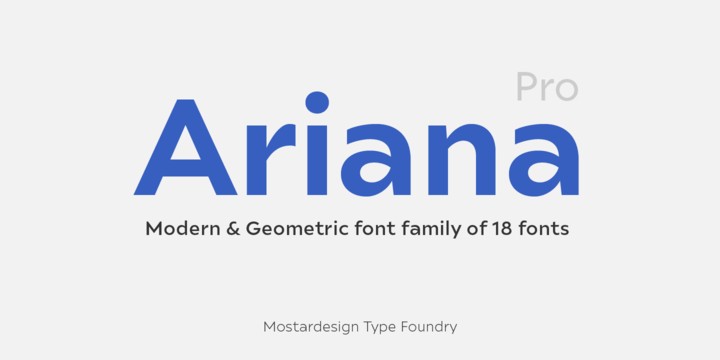
ariana
Unleash Your Creativity with Ariana Font
Ariana Font, crafted by renowned designer Alex Smith in 2022, embodies a modern touch with its stylish and elegant characters. Ideal for a broad range of applications, including web design, print media, advertising, and branding projects, Ariana brings an artistic flair that captivates audiences. Whether you’re designing posters for an event or crafting a logo for your business, Ariana is a perfect addition to your font collection.
Key Features and Available Formats of Ariana Font
Ariana Font is designed for versatility and ease of use, available in OTF, TTF, and WOFF formats, ensuring compatibility with popular design software such as Adobe Creative Suite, Figma, and Canva. The font’s smooth curves and sharp lines allow it to adapt beautifully to both digital and print formats, making it a go-to choice for designers.
The Inspiration Behind Ariana Font
Inspired by both classic typography and minimalistic modern design, Ariana Font stands out with its unique blend of elegance and readability. Alex Smith’s meticulous attention to detail highlights the font’s distinctive ligatures and flowing characters, perfect for projects seeking a sophisticated look.
Ideal Applications for Ariana Font
Ariana Font excels in various contexts, from website headers and social media graphics to elegant invitations and professional branding. Its adaptability makes it suitable for both personal and commercial projects, shining particularly in creative fields such as fashion, art, and lifestyle.